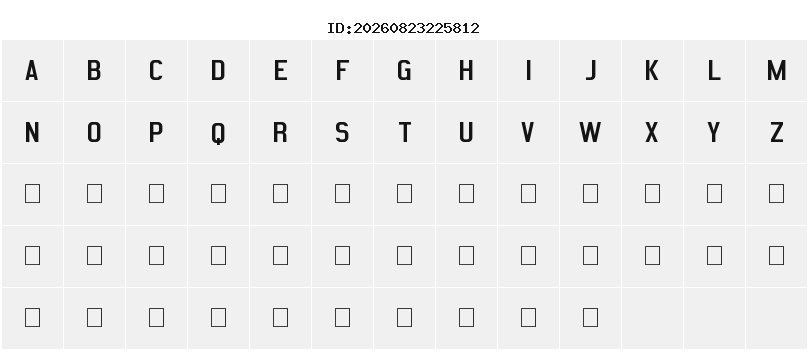
Sans Statement Preview
• Font Name: Sans Statement
• Full Font Name: Sans Statement Regular
• PostScript Name: SansStatement-Regular
• Character Count: 29
About Sans Statement.ttf
Sans Statement.ttf is a modern, elegant sans-serif font designed for ultimate readability and visual harmony. Perfect for branding, headlines, web design, and print materials.